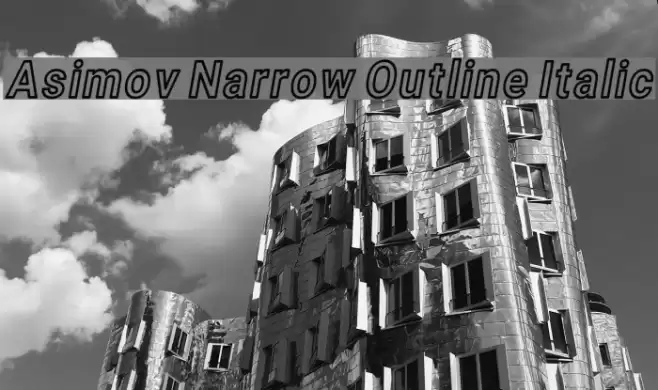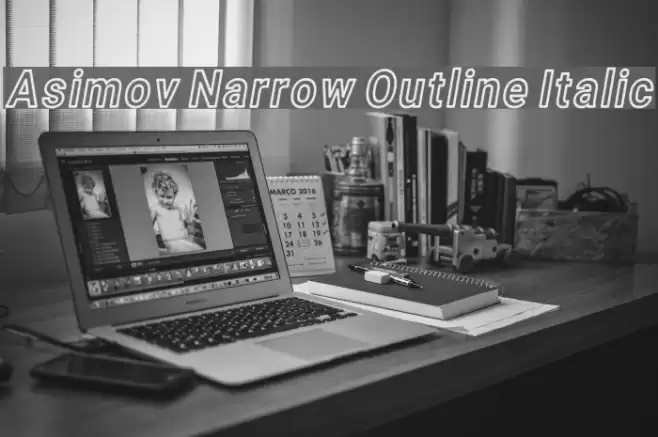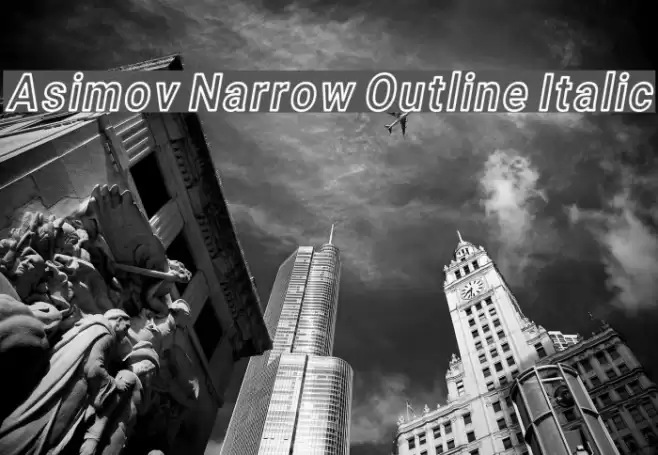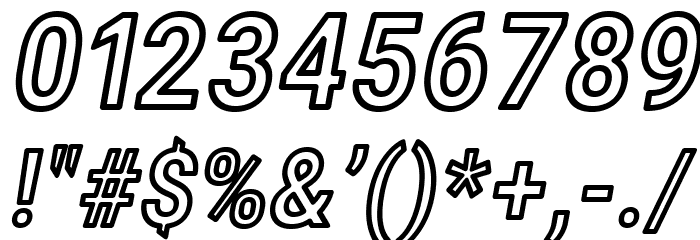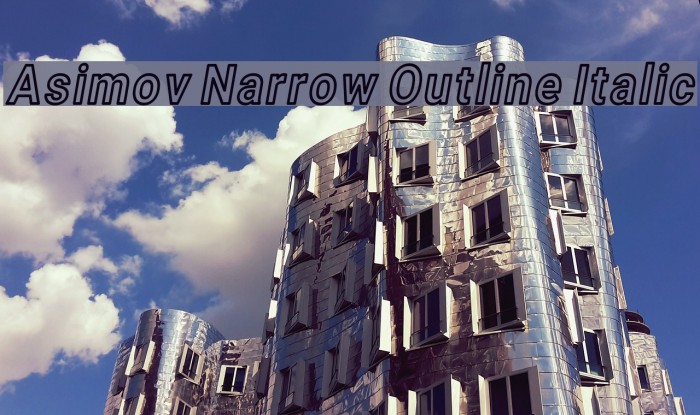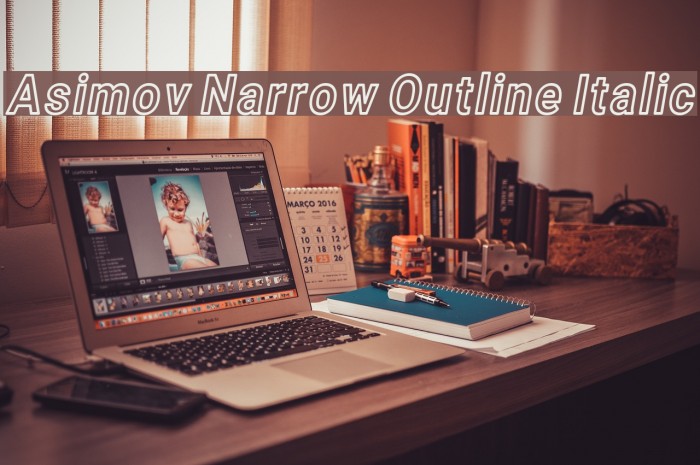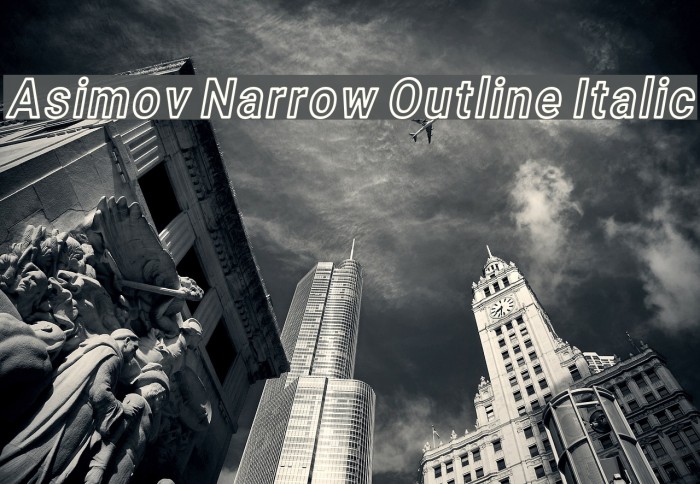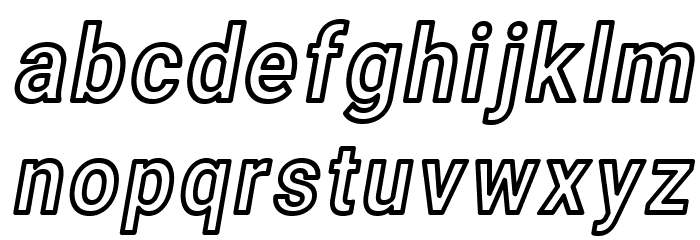
Asimov Narrow Outline Italic Font
Asimov Narrow Outline Italic Description
This font features a modern, sleek design with an outline style that gives it a distinctive and futuristic appearance. The characters are narrow and italicized, adding a dynamic and forward-leaning effect. The uppercase and lowercase letters maintain a consistent width, contributing to a uniform look. The numerals and special characters are crafted with the same attention to detail, ensuring readability and style. The overall design is clean and minimalistic, making it suitable for projects that require a contemporary and innovative touch.
A modern, narrow, italic outline font with a sleek and futuristic design from Uncategorized fonts.
- Proposed Projects: Ideal for tech branding, sci-fi themed projects, modern advertising, and digital interfaces.
- Use Case: Headlines, Logos, Digital interfaces